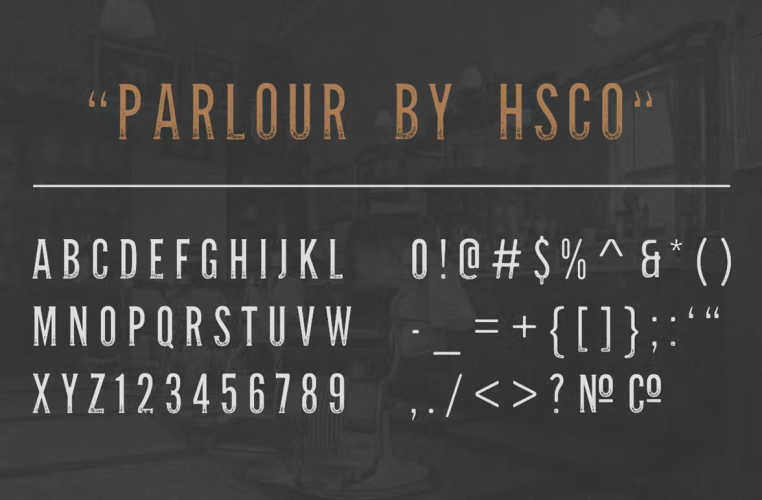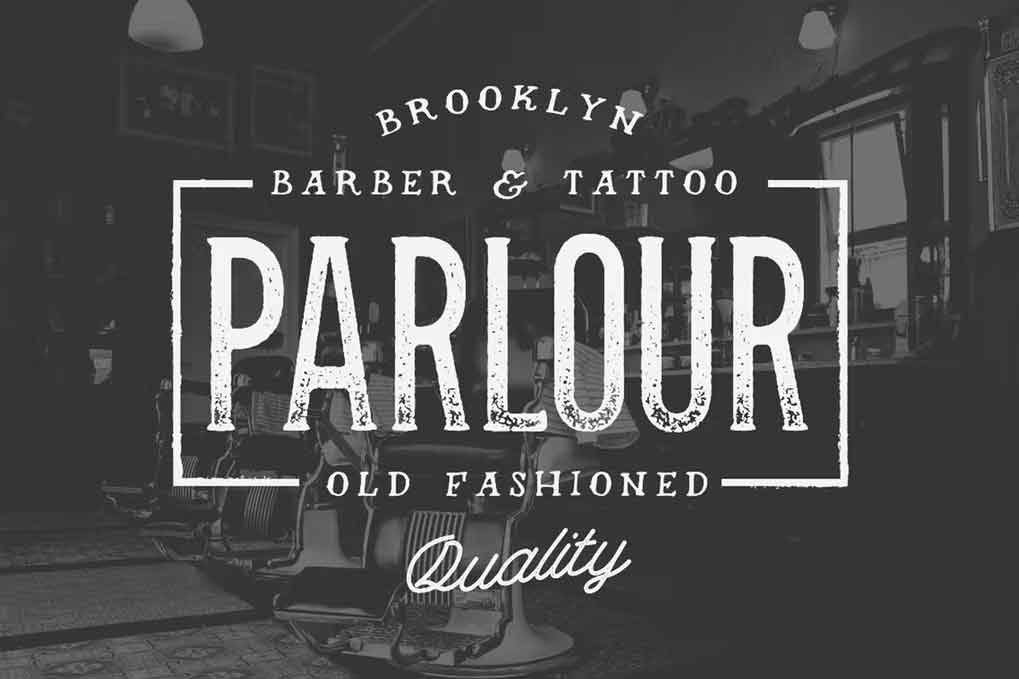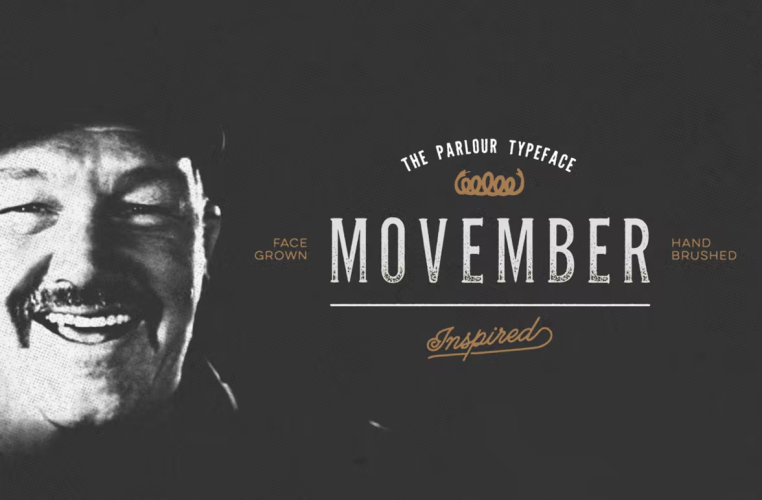
Parlour Font
Parlour
Without further ado, Hustle Supply Co. presents “Parlour” a display typeface inspired by Movember, Menswear Brands, Tattoo Shops & Barbers. This versatile font is perfect for your next project. This font comes with the texture already applied. Created with the software, “Glyphs”, this font comes in OTF format with a full alphabet, numbers, punctuation & other extra glyphs.
Parlour Font is a Serif Fonts font that brings a professional and versatile look to your projects. Parlour Without further ado, Hustle Supply Co.